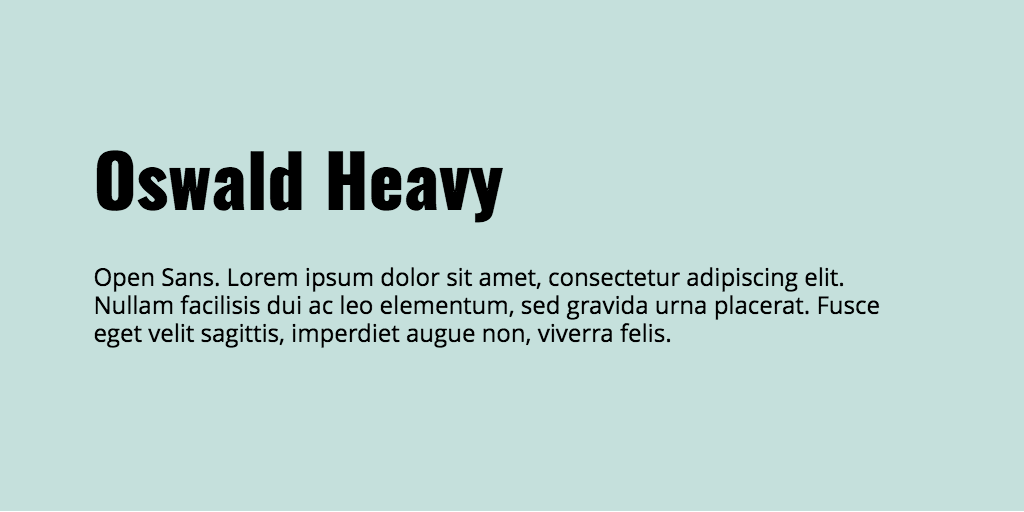
Creativefabrica Sans Serif Font Example Best Fonts. Arial is the most widely used font for both online and printed media. Arial is also the default font in google docs. Browse by alphabetical listing, by style, by author or by popularity. Licensed for personal and commercial use. Lorem ipsum dolor sit amet. Arial is one of the safest web fonts, and it is available on all major operating systems. The best selection of sans serif fonts for windows and macintosh. Sans serif fonts, as you might already know, are the fonts with no projecting lines at the ends. Microsoft sans serif font is a very legible user interface (ui) font. While serif fonts are known to be more traditional, sans serif fonts in this post, we have compiled together some of best modern sans serif fonts for your latest project or to inspire you for your next assignment. The following table shows examples of various fonts (your browser may not know all of them) and you can see what your browser does with each of the five generic ones: The most common examples are arial and helvetica. Google fonts now supports variable fonts. Archive of freely downloadable fonts. Download 10,000 fonts with one click for $19.95.
30 Best Free Sans Serif And Serif Fonts Rare. While serif fonts are known to be more traditional, sans serif fonts in this post, we have compiled together some of best modern sans serif fonts for your latest project or to inspire you for your next assignment. Sans serif fonts, as you might already know, are the fonts with no projecting lines at the ends. The following table shows examples of various fonts (your browser may not know all of them) and you can see what your browser does with each of the five generic ones: Archive of freely downloadable fonts. Microsoft sans serif font is a very legible user interface (ui) font. Download 10,000 fonts with one click for $19.95. Google fonts now supports variable fonts. Licensed for personal and commercial use. Arial is also the default font in google docs. Lorem ipsum dolor sit amet. Browse by alphabetical listing, by style, by author or by popularity. Arial is one of the safest web fonts, and it is available on all major operating systems. The best selection of sans serif fonts for windows and macintosh. The most common examples are arial and helvetica. Arial is the most widely used font for both online and printed media.
According to most studies, sans serif fonts are more difficult to read. Sans serif fonts, then, are the ones that don't have these ornamental lines in them. Sans serif fonts also work well where there's very little room for copy. Helvetica is the most awesome so i want that first, then arial for pc's since hey it's pretty close. Arial is also the default font in google docs. Arial is one of the safest web fonts, and it is available on all major operating systems. (there are exceptions, of course.
Learn what a sans serif font looks like & when to use or not use them now. Browse by alphabetical listing, by style, by author or by popularity. Arial is one of the safest web fonts, and it is available on all major operating systems. Some common serif typefaces are times new roman, georgia, palatino and garamond. Lorem ipsum dolor sit amet. Arial is the most widely used font for both online and printed media. Added by williamson (1 style). Licensed for personal and commercial use. They were seen as more modern, and more informal than the usual fonts with serifs that we still see in print and screens. It was designed to be metrically compatible with the ms sans bitmap font that shipped in early versions of microsoft windows. Sans serif fonts, then, are the ones that don't have these ornamental lines in them. The best selection of sans serif fonts for windows and macintosh. Serif vs sans serif fonts. They started being widely used during the 1920s bauhaus movement. According to most studies, sans serif fonts are more difficult to read. Sans serif is a category of typefaces. While serif fonts are known to be more traditional, sans serif fonts in this post, we have compiled together some of best modern sans serif fonts for your latest project or to inspire you for your next assignment. This font is equipped with uppercase, lowercase, numbers, punctuation, and several variations on each character. 143 free sans serif fonts. (there are exceptions, of course. Added by marlin fritsch (1 style). Google fonts now supports variable fonts. Signs, text in apps and names on maps tend to be sans serif. Sans serif fonts are popular, and give your design a modern look. Some sans serif font families, like arial, are meant to work as body copy — text that goes on on for more than a sentence or two.) Download 10,000 fonts with one click for $19.95. The small features on the ends of strokes in some fonts are known as serifs.. For this reason, they are used most often for short text components such as headlines or captions. Microsoft sans serif font is a very legible user interface (ui) font. Altero is a clean sans serif font including both solid & outline styles created by stefano giliberti. This font is multilingual and works well with any desired project.
60 Free Sans Serif Fonts To Give Your Designs A Modern Touch. Download 10,000 fonts with one click for $19.95. The most common examples are arial and helvetica. The following table shows examples of various fonts (your browser may not know all of them) and you can see what your browser does with each of the five generic ones: Google fonts now supports variable fonts. Arial is also the default font in google docs. Archive of freely downloadable fonts. Lorem ipsum dolor sit amet. The best selection of sans serif fonts for windows and macintosh. Arial is the most widely used font for both online and printed media. Microsoft sans serif font is a very legible user interface (ui) font. Browse by alphabetical listing, by style, by author or by popularity. Sans serif fonts, as you might already know, are the fonts with no projecting lines at the ends. Arial is one of the safest web fonts, and it is available on all major operating systems. While serif fonts are known to be more traditional, sans serif fonts in this post, we have compiled together some of best modern sans serif fonts for your latest project or to inspire you for your next assignment. Licensed for personal and commercial use.
30 Best Free Sans Serif And Serif Fonts Rare. Licensed for personal and commercial use. The following table shows examples of various fonts (your browser may not know all of them) and you can see what your browser does with each of the five generic ones: Arial is one of the safest web fonts, and it is available on all major operating systems. Archive of freely downloadable fonts. Arial is the most widely used font for both online and printed media. Download 10,000 fonts with one click for $19.95. The best selection of sans serif fonts for windows and macintosh. Browse by alphabetical listing, by style, by author or by popularity. Arial is also the default font in google docs. Microsoft sans serif font is a very legible user interface (ui) font. The most common examples are arial and helvetica. Sans serif fonts, as you might already know, are the fonts with no projecting lines at the ends. Lorem ipsum dolor sit amet. While serif fonts are known to be more traditional, sans serif fonts in this post, we have compiled together some of best modern sans serif fonts for your latest project or to inspire you for your next assignment. Google fonts now supports variable fonts.
25 Free Sans Serif Fonts For Motion Design The Beat A Blog By Premiumbeat. Google fonts now supports variable fonts. Licensed for personal and commercial use. Lorem ipsum dolor sit amet. Microsoft sans serif font is a very legible user interface (ui) font. Arial is also the default font in google docs. The following table shows examples of various fonts (your browser may not know all of them) and you can see what your browser does with each of the five generic ones: Download 10,000 fonts with one click for $19.95. The best selection of sans serif fonts for windows and macintosh. Browse by alphabetical listing, by style, by author or by popularity. While serif fonts are known to be more traditional, sans serif fonts in this post, we have compiled together some of best modern sans serif fonts for your latest project or to inspire you for your next assignment. Arial is the most widely used font for both online and printed media. Arial is one of the safest web fonts, and it is available on all major operating systems. Archive of freely downloadable fonts. The most common examples are arial and helvetica. Sans serif fonts, as you might already know, are the fonts with no projecting lines at the ends.
Sans serif fonts, then, are the ones that don't have these ornamental lines in them.
Top 10 Most Popular Sans Serif Fonts Of 2020 Typewolf. Lorem ipsum dolor sit amet. Download 10,000 fonts with one click for $19.95. The best selection of sans serif fonts for windows and macintosh. Microsoft sans serif font is a very legible user interface (ui) font. Google fonts now supports variable fonts. Sans serif fonts, as you might already know, are the fonts with no projecting lines at the ends. Arial is the most widely used font for both online and printed media. Browse by alphabetical listing, by style, by author or by popularity. Licensed for personal and commercial use. Arial is one of the safest web fonts, and it is available on all major operating systems. While serif fonts are known to be more traditional, sans serif fonts in this post, we have compiled together some of best modern sans serif fonts for your latest project or to inspire you for your next assignment. The following table shows examples of various fonts (your browser may not know all of them) and you can see what your browser does with each of the five generic ones: The most common examples are arial and helvetica. Archive of freely downloadable fonts. Arial is also the default font in google docs.
This font is multilingual and works well with any desired project.
60 Free Sans Serif Fonts To Give Your Designs A Modern Touch. Arial is also the default font in google docs. The most common examples are arial and helvetica. Arial is one of the safest web fonts, and it is available on all major operating systems. Archive of freely downloadable fonts. Sans serif fonts, as you might already know, are the fonts with no projecting lines at the ends. Microsoft sans serif font is a very legible user interface (ui) font. Arial is the most widely used font for both online and printed media. Download 10,000 fonts with one click for $19.95. The following table shows examples of various fonts (your browser may not know all of them) and you can see what your browser does with each of the five generic ones: While serif fonts are known to be more traditional, sans serif fonts in this post, we have compiled together some of best modern sans serif fonts for your latest project or to inspire you for your next assignment. Google fonts now supports variable fonts. Lorem ipsum dolor sit amet. Licensed for personal and commercial use. The best selection of sans serif fonts for windows and macintosh. Browse by alphabetical listing, by style, by author or by popularity.
This font is multilingual and works well with any desired project.
60 Free Sans Serif Fonts To Give Your Designs A Modern Touch. The best selection of sans serif fonts for windows and macintosh. Arial is the most widely used font for both online and printed media. Download 10,000 fonts with one click for $19.95. Licensed for personal and commercial use. The following table shows examples of various fonts (your browser may not know all of them) and you can see what your browser does with each of the five generic ones: Lorem ipsum dolor sit amet. The most common examples are arial and helvetica. Google fonts now supports variable fonts. Sans serif fonts, as you might already know, are the fonts with no projecting lines at the ends. Arial is also the default font in google docs. Archive of freely downloadable fonts. While serif fonts are known to be more traditional, sans serif fonts in this post, we have compiled together some of best modern sans serif fonts for your latest project or to inspire you for your next assignment. Browse by alphabetical listing, by style, by author or by popularity. Microsoft sans serif font is a very legible user interface (ui) font. Arial is one of the safest web fonts, and it is available on all major operating systems.
This font is multilingual and works well with any desired project.
Learn what a sans serif font looks like & when to use or not use them now. Arial is one of the safest web fonts, and it is available on all major operating systems. Serif vs sans serif fonts. Helvetica is the most awesome so i want that first, then arial for pc's since hey it's pretty close. Some sans serif font families, like arial, are meant to work as body copy — text that goes on on for more than a sentence or two.) Altero is a clean sans serif font including both solid & outline styles created by stefano giliberti. Sans serif fonts are popular, and give your design a modern look. Arial is also the default font in google docs. 143 free sans serif fonts. Branding, logo design, posters, advertising, magazines, films, headlines